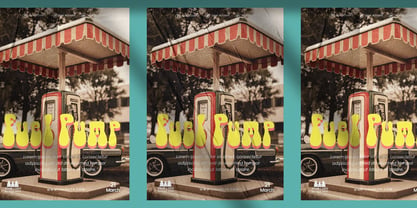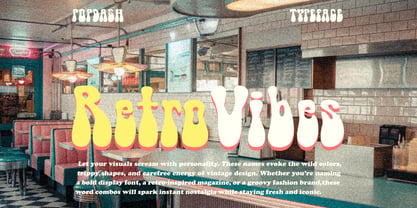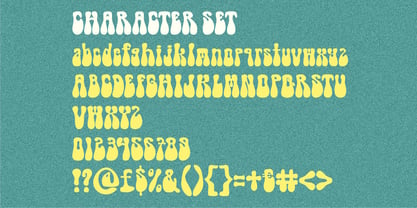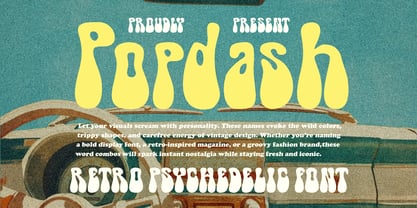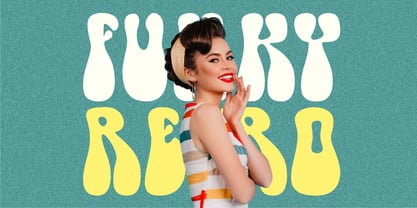
Popdash
by Shanaf
The Popdash Font Family was designed by Yesie Erma Yunita and published by Shanaf. Popdash contains 1 styles. More about this family
Popdash Retro Psychedelic Font is a bold and expressive typeface that revives the carefree energy of vintage design. Its wide, wavy shapes and groovy curves evoke the playful spirit of 70s and 80s psychedelic culture. Each letter flows with trippy proportions, creating a bold statement that demands attention. Perfect for those who love nostalgic aesthetics, this font combines retro authenticity with modern usability. Popdash Retro Psychedelic Font transforms any project into a visual celebration of color, energy, and free-spirited creativity.
This font is designed for maximum impact in headlines, posters, packaging, and logos. Its chunky and fluid style makes it ideal for fashion branding, album covers, event flyers, or even decorative invitations. The unique character set provides versatility without losing its iconic retro identity. Designers seeking a typeface that balances funky expression with readability will find Popdash Retro Psychedelic Font an essential addition. Whether you aim to create a groovy magazine spread, vintage-themed artwork, or bold social media graphics, this font delivers a timeless psychedelic feel that remains fresh and relevant.
Designers: Yesie Erma Yunita
Foundry: Shanaf